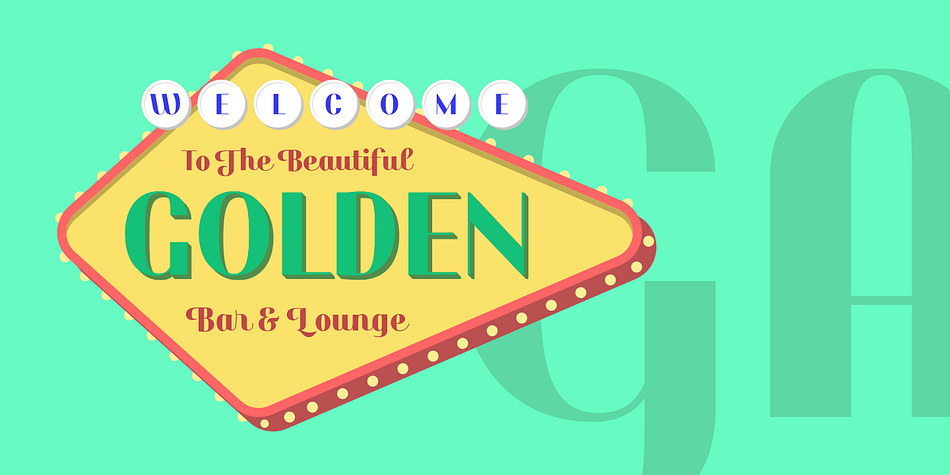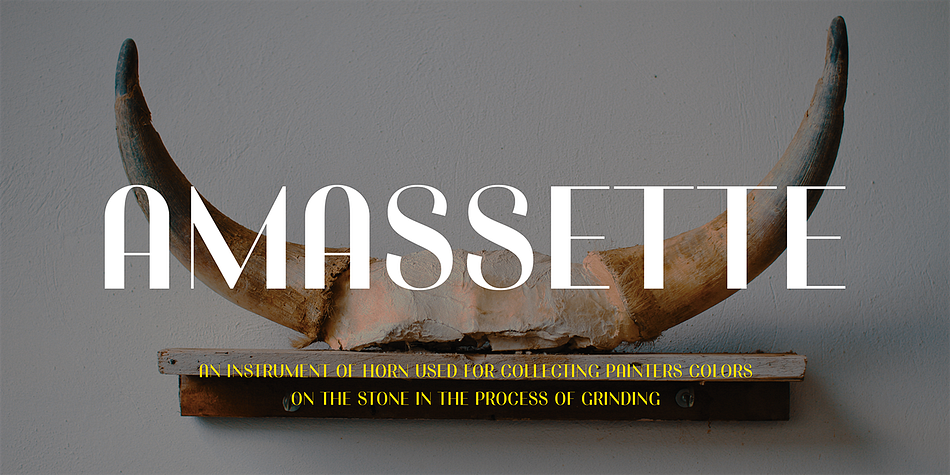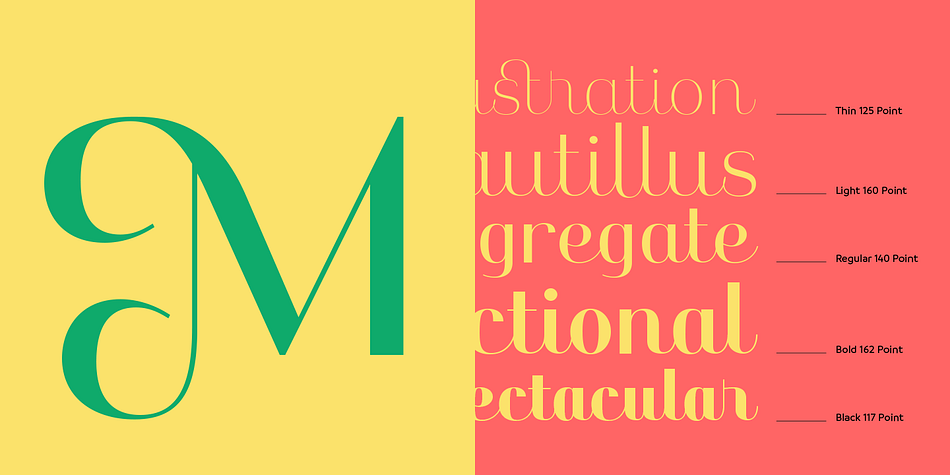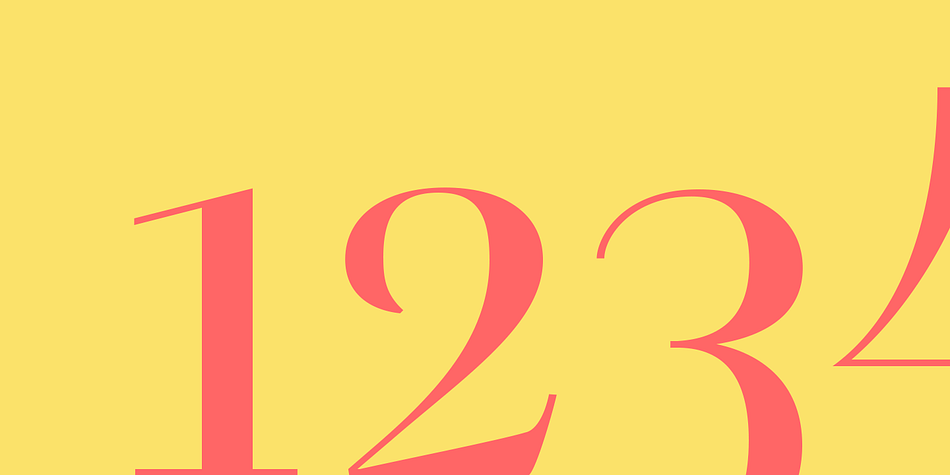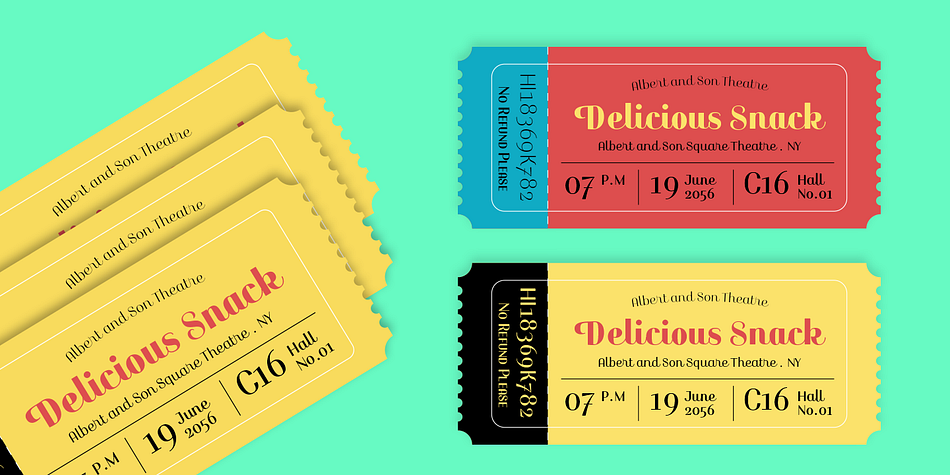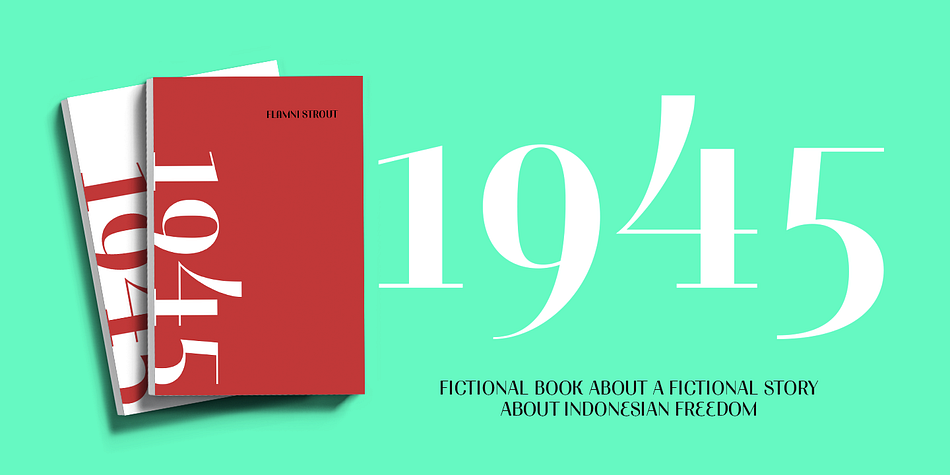
Designed by Fadhl Waliy Ul Haqq, Karmilla is a sans serif font family. This typeface has five styles and was published by Akufadhl.
Karmilla is a Didone upright script styled typeface. With strong contrast between thick and thin lines, Karmilla is presenting a luxurious and Feminine character and is perfectly suited to create an elegant and classical design.
Karmilla includes a wide range of Latin based language support and many additional features such as swashes, stylistic set, small caps and more.